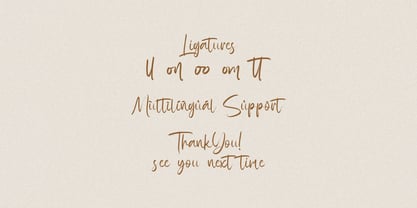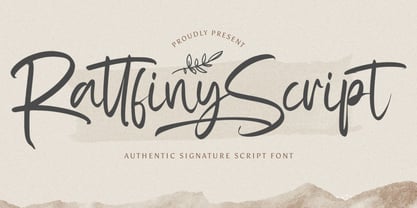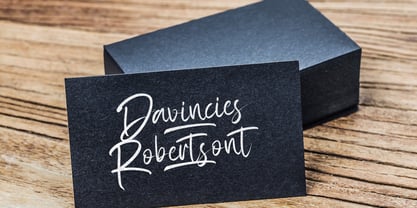
Rattfiny Script
by Stringlabs Creative Studio
The Rattfiny Script Font Family was designed by Virgiawan Listanto and published by Stringlabs Creative Studio. Rattfiny Script contains 1 styles. More about this family
Rattfiny Script is a sleek and stylish signature script font that exudes sophistication and personal charm. With its flowing lines, delicate curves, and natural handwritten style, this font is perfect for creating elegant, high-end designs with a personal touch.
Designers: Virgiawan Listanto
Foundry: Stringlabs Creative Studio